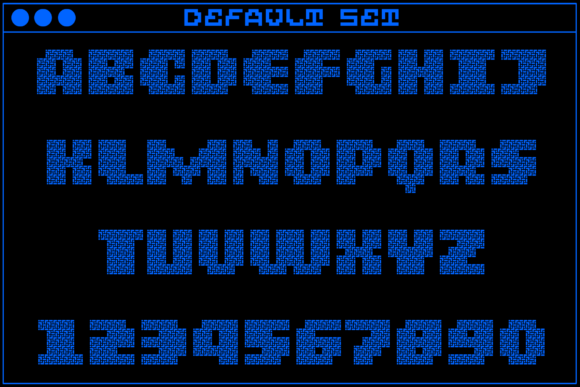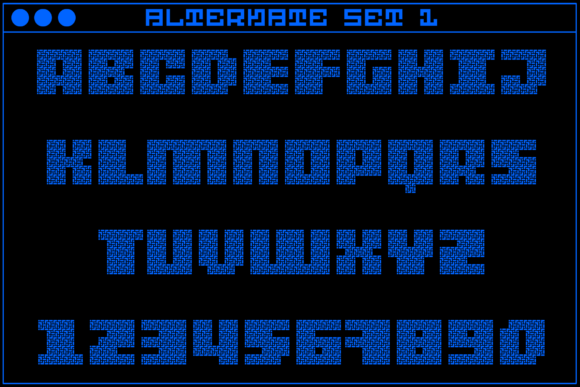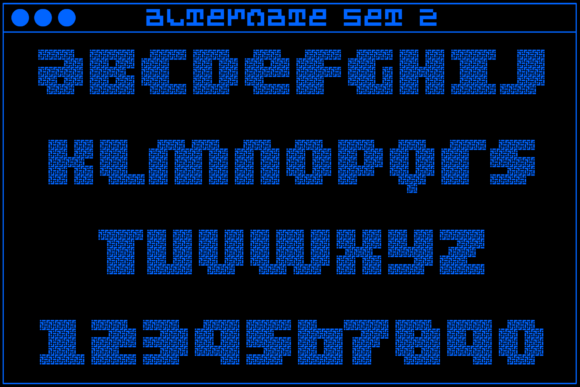
MultiType Maze Display is a cool, uniquely shaped, pixelated display font.
Add a distorted and trendy touch to your designs with this unusual pixel font MultiType Maze Display is PUA encoded which means you can access all glyphs and swashes with ease.